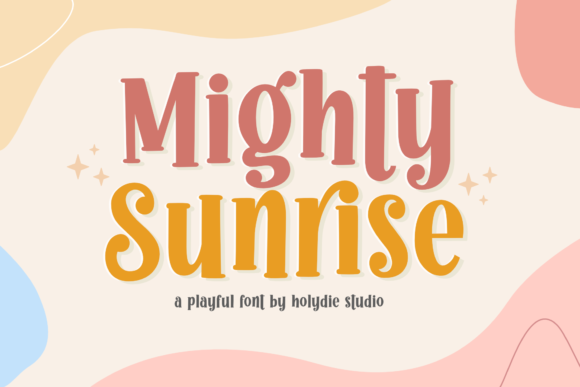
Behold Mighty Sunrise Font, a captivating display font brimming with joy and cheer. Picture Christmas morning's magic, the twinkle of lights, the warmth of family, and the excitement of unwrapping presents. Our font captures this enchanting spirit, bringing an irresistibly festive touch to your designs.
Crafted by the talented Holydie Studio, Mighty Sunrise is a symphony of delight, Its cheerful aura is perfect for spreading holiday cheer, adding a touch of whimsy to your greeting cards, posters, gift tags, personalized ornaments, and even Christmas-themed websites. Create eye-catching social media posts that radiate holiday spirit or use it on promotional materials to make your brand shine brighter than a Christmas star.
The Mighty Sunrise Font is not just for Christmas. Its infectious joy is perfect for any occasion that calls for a touch of merriment. Spread smiles with birthday invitations, inject fun into party posters, or create enchanting graphics for your personal or professional projects. The possibilities are endless, bound only by your imagination.
Make your designs smile! Choose Mighty Sunrise Font to infuse your projects with cheer, joy, and a touch of Christmas magic. It's the perfect font for adding a festive touch to your designs, effortlessly bringing smiles to the faces of your audience. Download Mighty Sunrise Font today and let the holiday spirit shine through your creations!